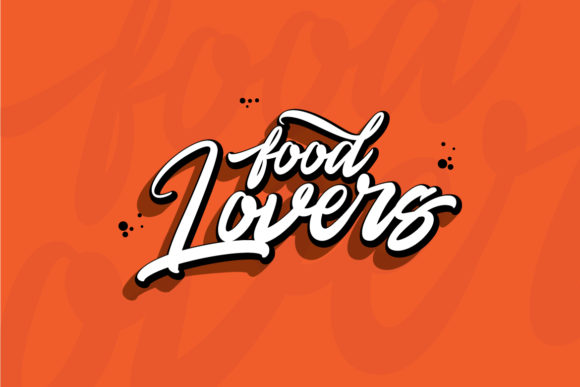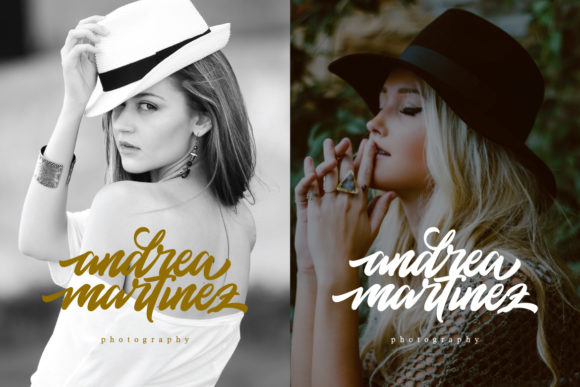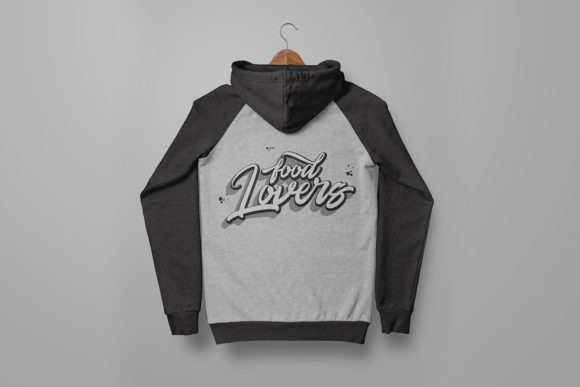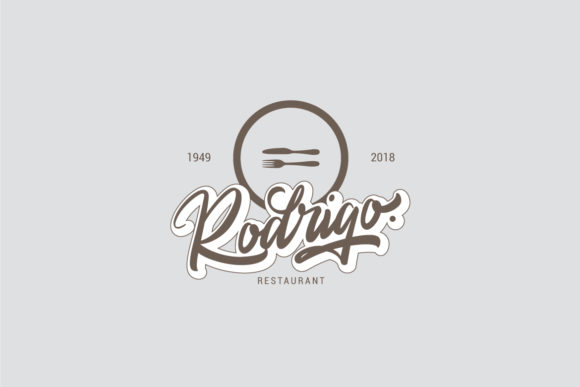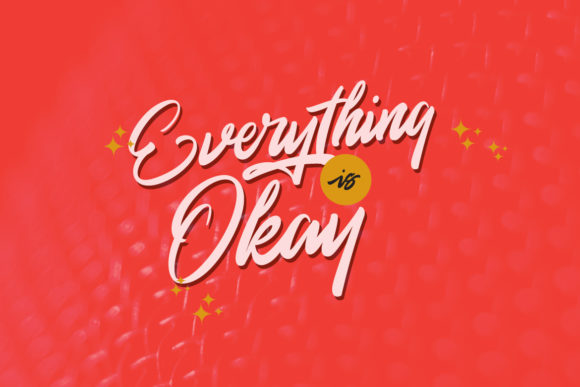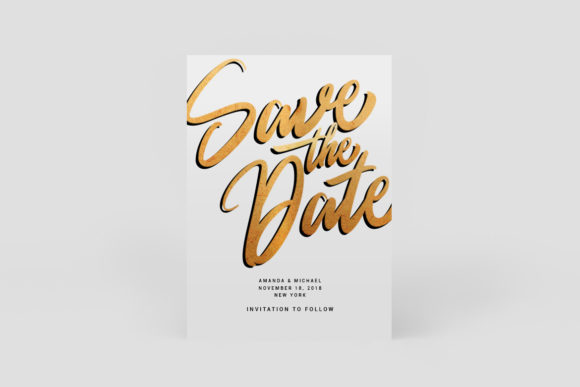
Introduction to Rommantis Font
Have you ever found yourself scrolling through design inspiration boards, and suddenly, a particular font catches your eye, making your entire project come together? For designers, discovering that perfect font can be a game-changer. It’s the moment when you know your creative project is about to take a leap forward. This is exactly what happened when I stumbled upon the stunning Rommantis Font.
This gorgeous yet flowing and unique script font has captured the hearts of many designers, and for good reason. With its PUA encoded features, accessing all of the glyphs and swashes is a breeze, allowing for seamless customization in your designs. Whether you’re working on a high-quality print project or a digital design with a transparent background, Rommantis Font is the perfect design resource to elevate your work.
What sets Rommantis Font apart is its incredibly relaxed style, making it a valuable asset for designers looking to create stunning and unique designs. With its smooth lines, gorgeous glyphs, and stunning alternates, this font is sure to make your designs stand out. And the best part? It’s available for a free download, making it an essential addition to any designer’s toolkit.
Key Features of Rommantis Font
- High-quality design resource ideal for creative projects, offering a unique and stylish look.
- Features a transparent background, making it easy to overlay on images or use as a standalone element.
- Supports various font sizes and resolutions, making it suitable for use in digital and print media.
- Designed with a modern aesthetic, the Rommantis Font is perfect for designers and artists looking to add a touch of elegance to their work.
Honest Review: Rommantis Font
As a designer, I’m always on the lookout for high-quality design resources to elevate my creative projects. The Rommantis Font caught my eye, and I decided to give it a try.
- Unique and elegant design aesthetic that adds a touch of sophistication to any project.
- High-quality font files that are perfect for both digital and print use.
- Transparent background option, making it easy to use with any background image or color.
- Limited character set, which may not be ideal for extensive writing or typing projects.
- No bold or italic variations, which may limit its use in certain design contexts.
Overall, I’m impressed with the Rommantis Font. Its unique design and high-quality files make it a great addition to any designer’s toolkit. While it may have some limitations, it’s still a valuable resource for creative projects that require a touch of elegance.
Rommantis Font
The Rommantis Font is a high-quality design resource perfect for creative projects that require a unique and elegant touch. This free download offers a transparent background, making it easy to incorporate into various design platforms.
Tips for Getting the Most Out of Rommantis Font
To get the most out of the Rommantis Font, experiment with different font sizes, colors, and combinations to achieve the desired look for your creative project.
The Rommantis Font is ideal for use in creative projects such as:
- Web design and landing pages